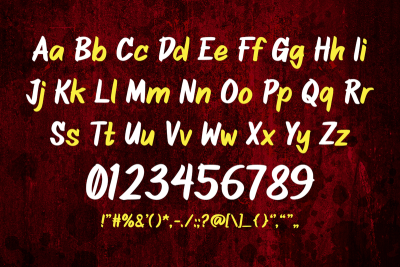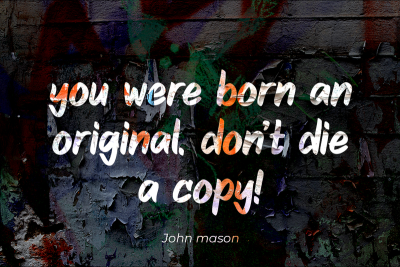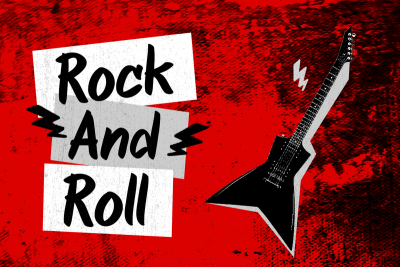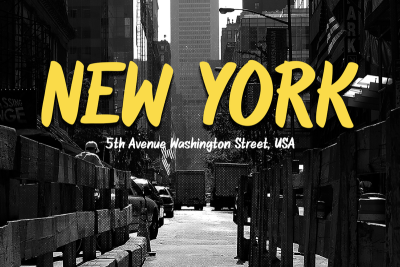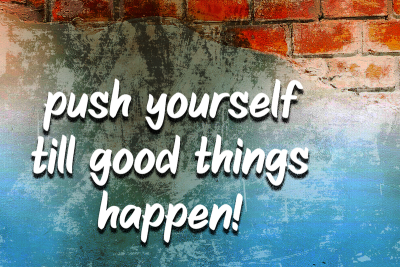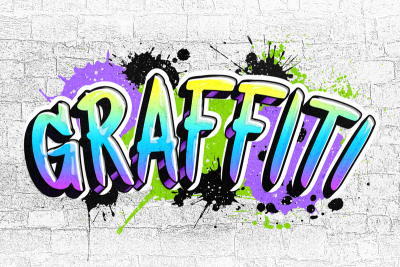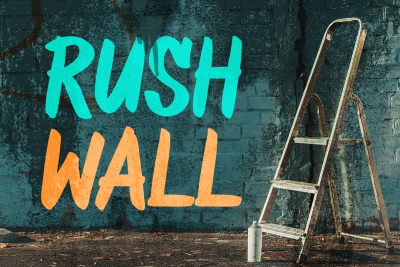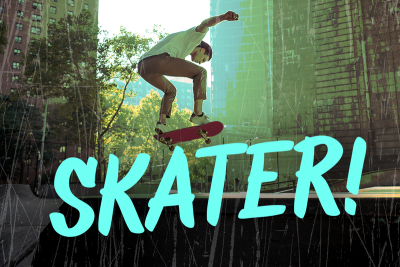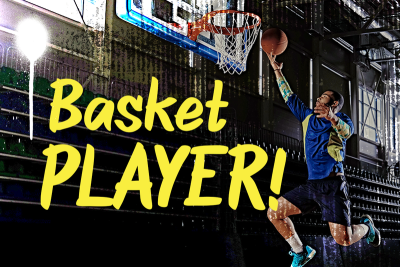
Graffiti Font Resistence is a bold, graffiti-style font that captures the raw energy of street art. With its thick strokes and slightly irregular structure, this font mirrors the look of hand-painted graffiti on urban walls. Each letter exudes a rebellious spirit, making Resistence an ideal choice for projects that need a bold and impactful statement. Furthermore, its vibrant design conveys freedom and creativity, adding a unique urban flair to any text. The brush-like strokes and strong lines ensure that Resistence stands out in both digital and print formats, easily drawing attention with its distinctive style.
Additionally, this font embodies street art culture, bringing the grit and attitude of city life into your designs. Itโs perfect for projects that seek a youthful and raw aesthetic. Moreover, the slight imperfections and hand-drawn quality enhance its authenticity, giving your work an edgy, unique feel. Ultimately, Resistence lends any project a distinctive and memorable identity thatโs hard to ignore.
Graffiti Font Resistence Ideal for Designers and Creatives
Graffiti Font Resistence is particularly suited for graphic designers, social media managers, and creatives working in music, fashion, or lifestyle branding. Specifically, its graffiti-inspired style resonates with brands targeting younger, urban audiences or those who want to convey a rebellious vibe. Designers can use it effectively for posters, album covers, clothing labels, or social media graphics that require bold visuals. Furthermore, independent creators will also appreciate its distinct style, which can make personal projects more memorable.
For businesses and individuals aiming for a gritty, urban look, Graffiti Font Resistence offers the right blend of style and attitude. Its versatility makes it useful across a variety of contexts, from streetwear brand logos to event posters and digital content that needs to capture attention. Whether used in logos, merchandise, or advertising, Resistence ensures your message doesnโt just blend inโit stands out.